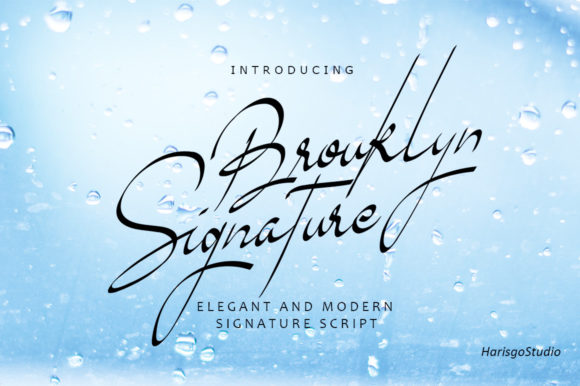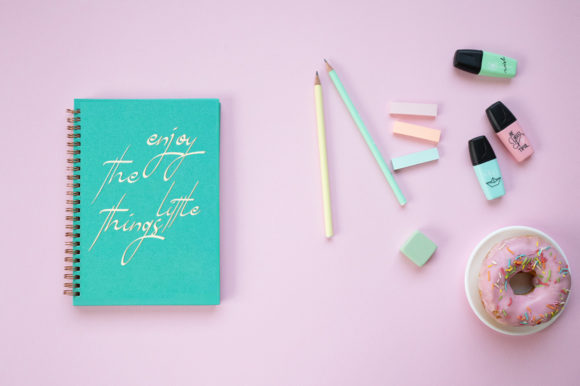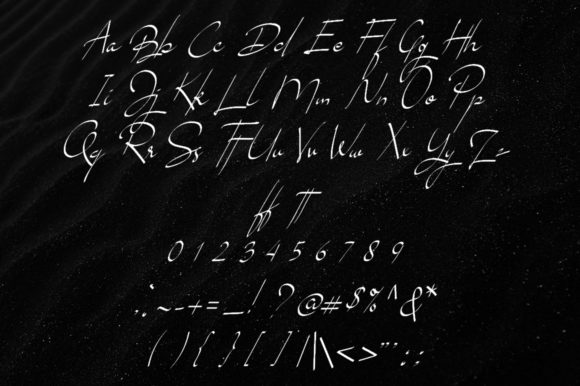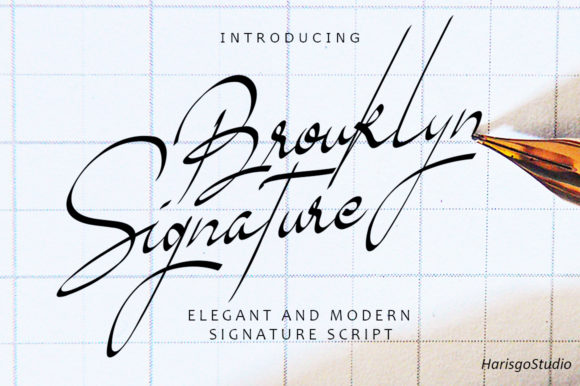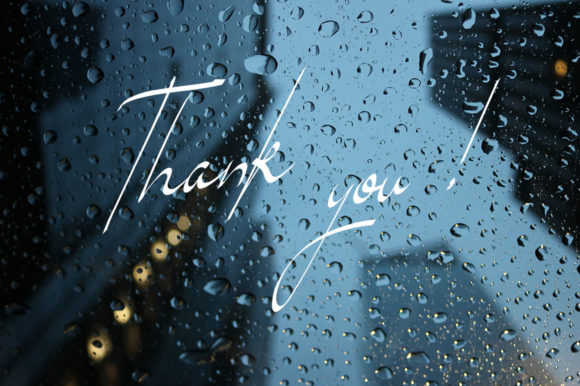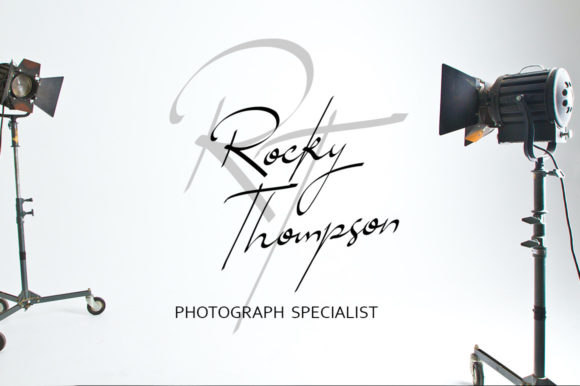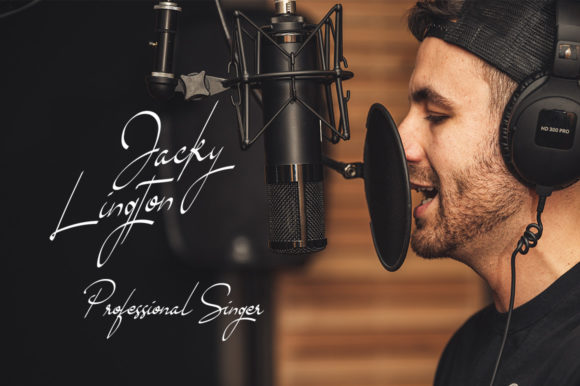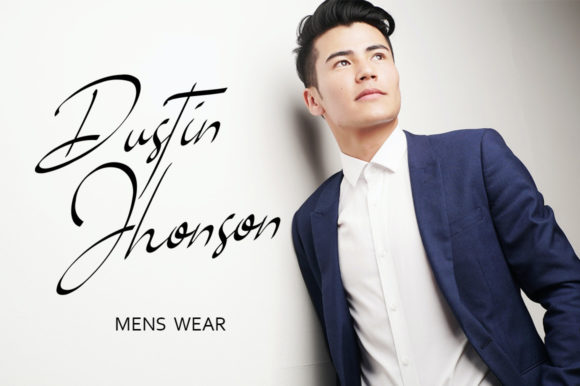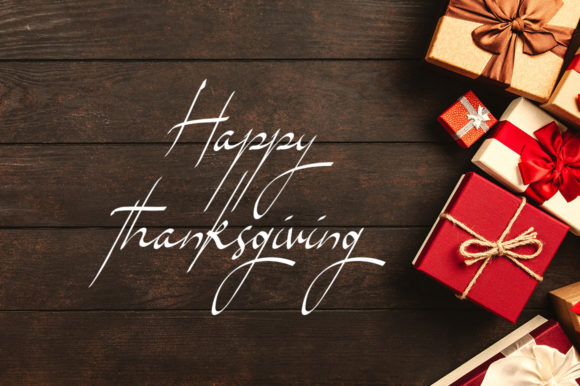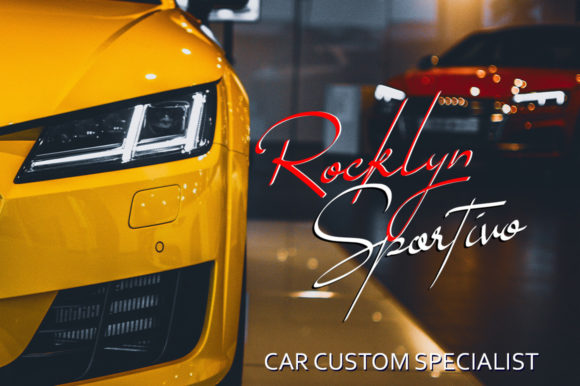
Brouklyn Signature Font
About Brouklyn Signature Font
“Brouklyn Signature” is a script font that is characterized by its thin lettering and delicate style. This font exudes elegance and sophistication, making it a perfect choice for a variety of projects.
The design of “Brouklyn Signature” is influenced by the grace and elegance of handwritten scripts. Its thin letterforms and subtle curves give it a delicate and refined appeal. This font is perfect for adding a touch of elegance and sophistication to your designs.
One of the standout features of “Brouklyn Signature” is its versatility. It is suitable for a wide range of applications, from blog posts and logos to branding projects and advertisements. Whether you’re looking to add a personal touch to your blog posts, create a memorable logo, or enhance your brand’s visual identity, “Brouklyn Signature” is an excellent choice.
In addition to its beautiful design, “Brouklyn Signature” is also easy to use. Its characters are clearly defined and easy to read, making it a practical choice for both print and digital projects. Despite its intricate design, “Brouklyn Signature” remains legible even at smaller sizes, ensuring that your message is always clear and easy to understand.
Furthermore, “Brouklyn Signature” is also a great choice for projects that require a personal touch. Its delicate and refined design makes it perfect for invitations, greeting cards, planners, photo albums, and decorations. With “Brouklyn Signature”, you can add a touch of elegance and sophistication to any project.